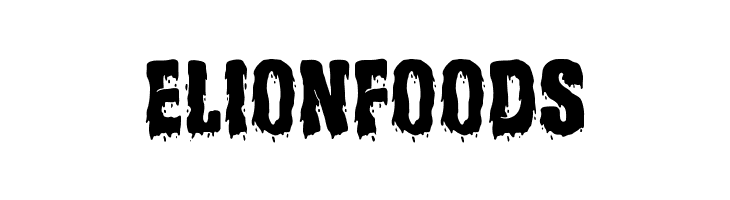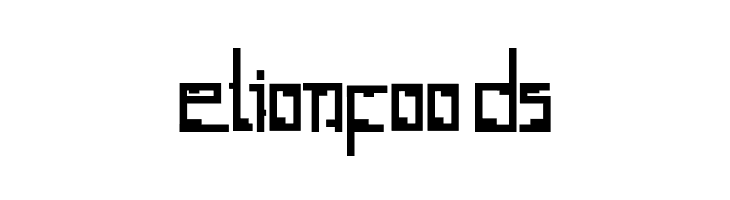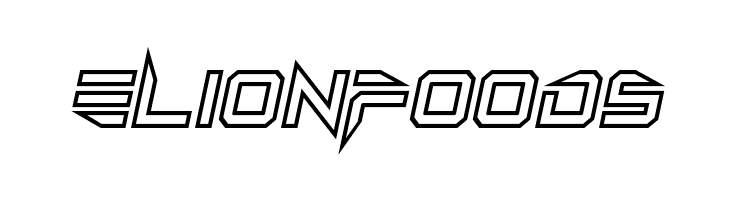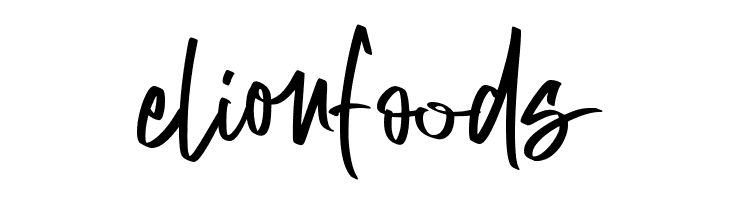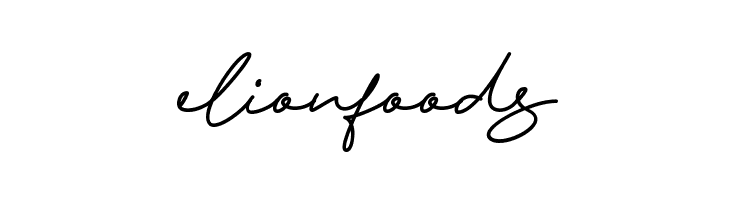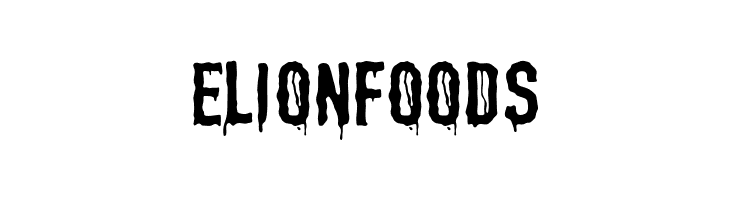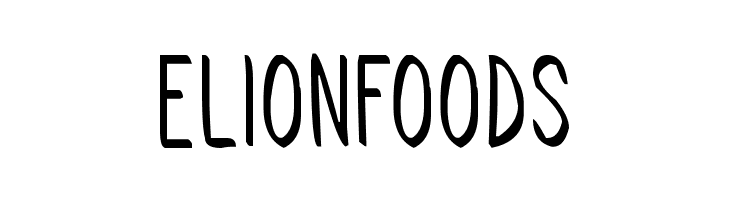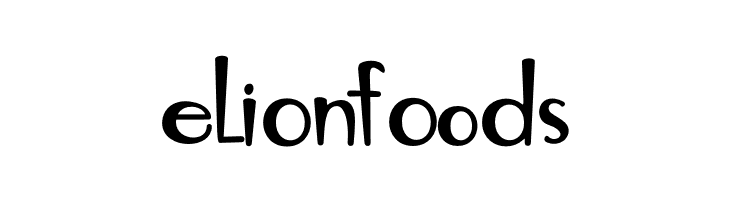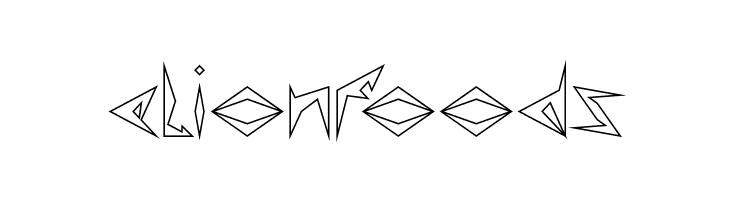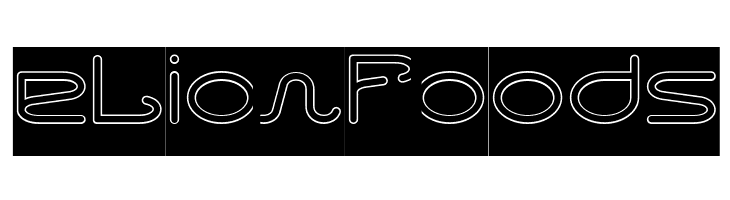
A bold, dripping font ideal for horror-themed designs.
A bold, geometric font with a retro, pixelated design.
A bold, angular, and italicized font with a futuristic, edgy design.
A lively handwritten font with fluid, energetic strokes and a playful style.
A flowing, cursive font with elegant, sweeping lines and a handwritten appearance.
A spooky, dripping font ideal for horror-themed designs.
A playful, handwritten font with bold, whimsical characters.
A bold, angular font with a futuristic and edgy style.
A futuristic, outlined font with geometric precision and smooth, continuous lines.